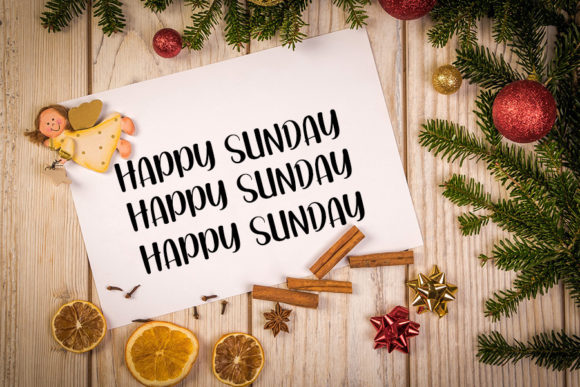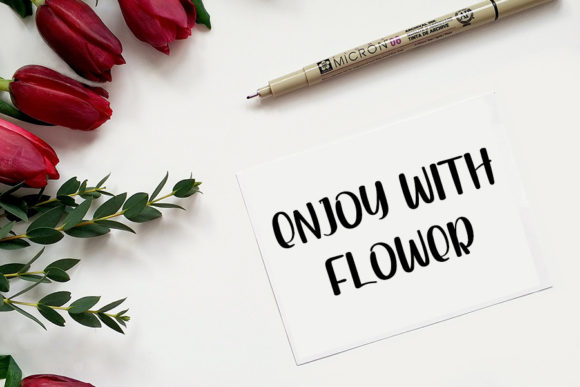
Dear Agatha Font
db-ku.com - Script & Handwritten -- Dear Agatha is a simple and clean script font that fits various informal and formal creations. It works incredibly well on quotes, logos, card writing or even wedding invitations. Its simple vibe will make your designs look impeccable.